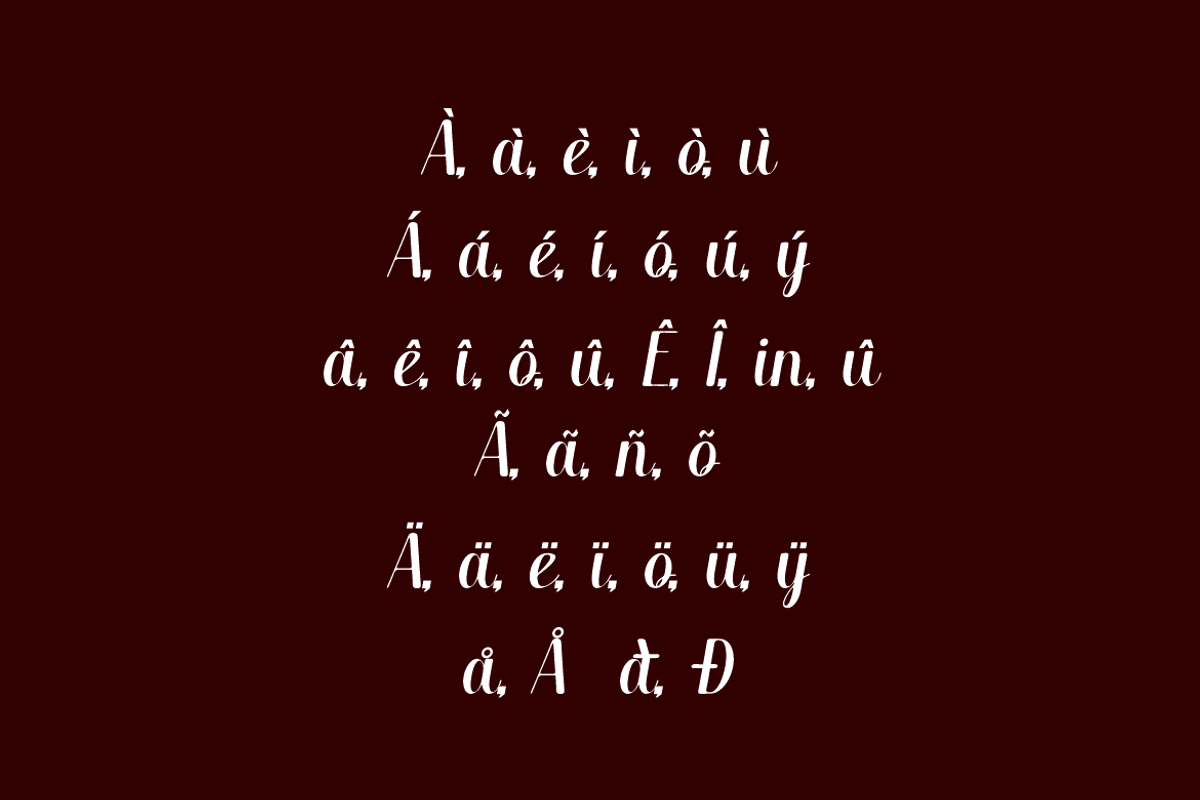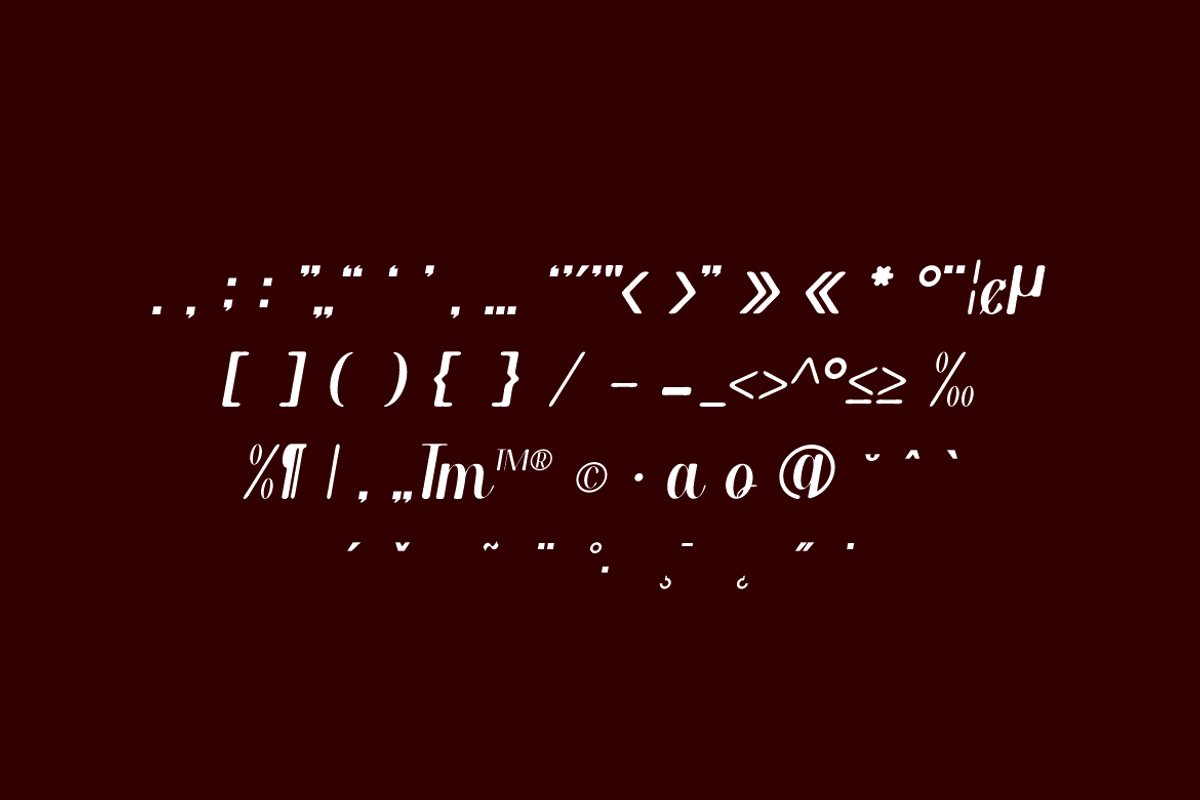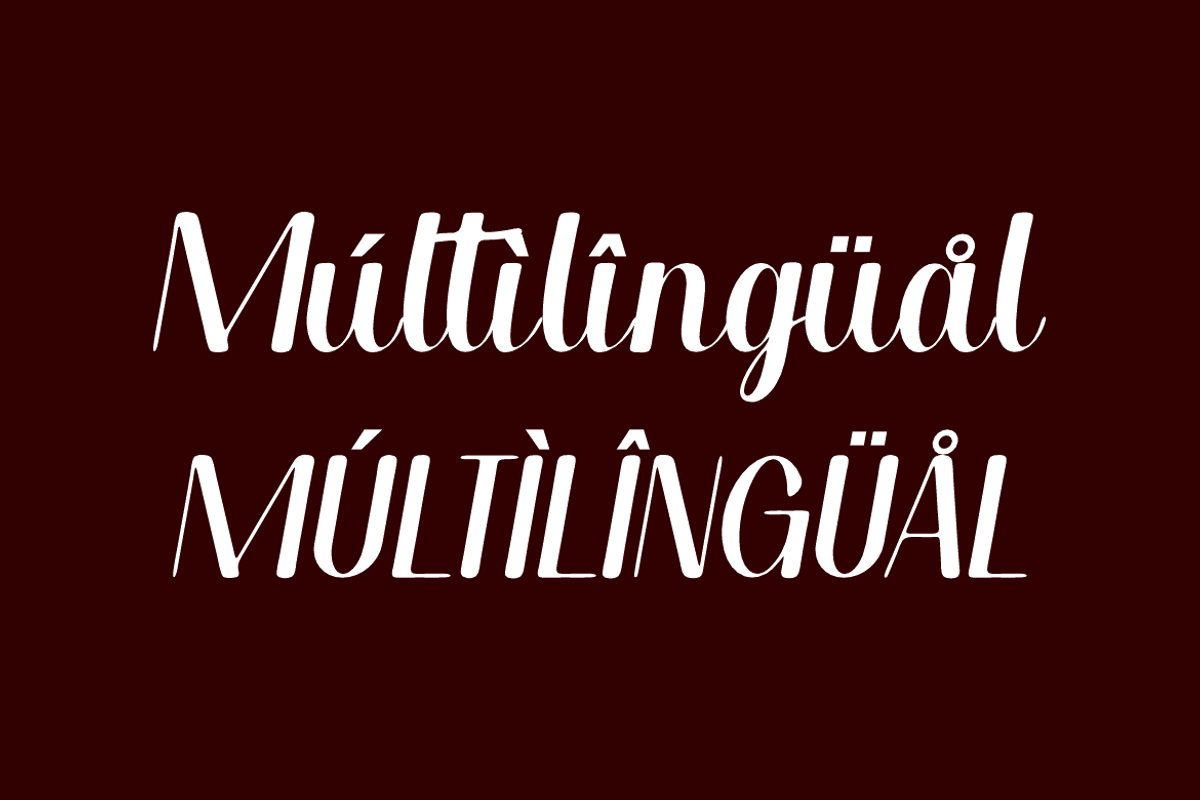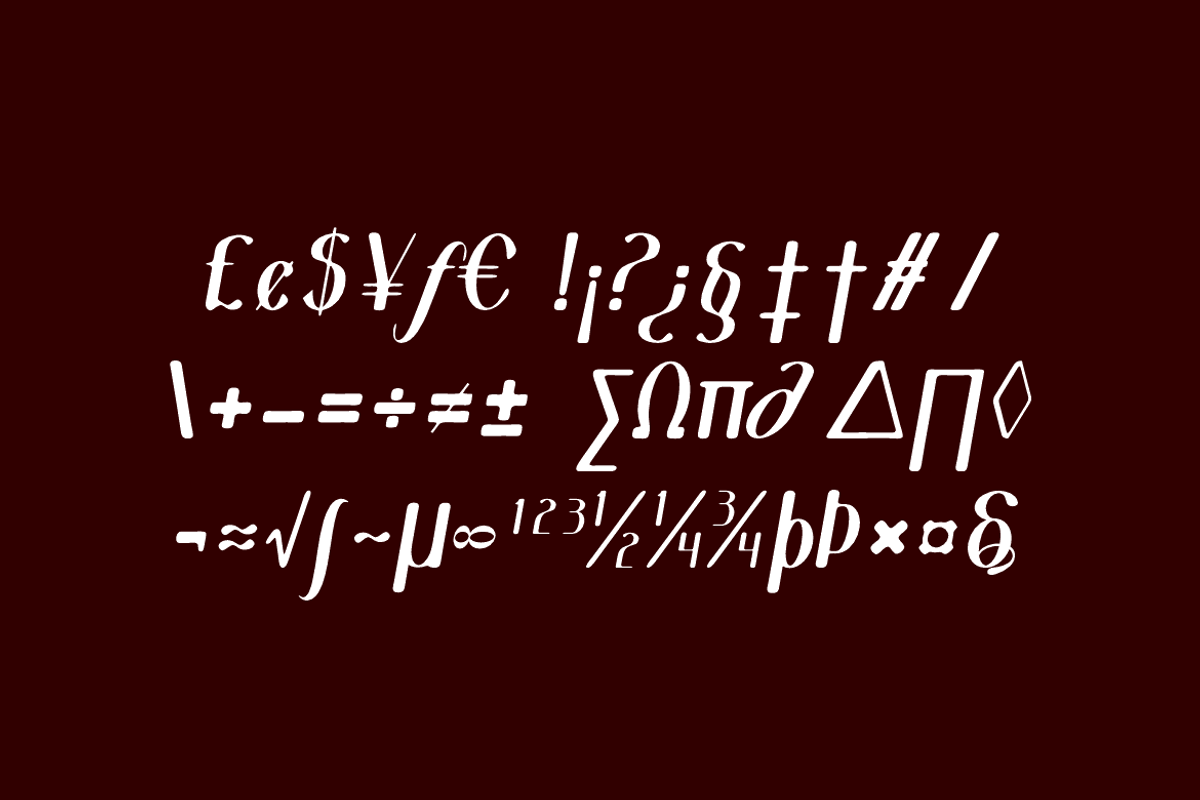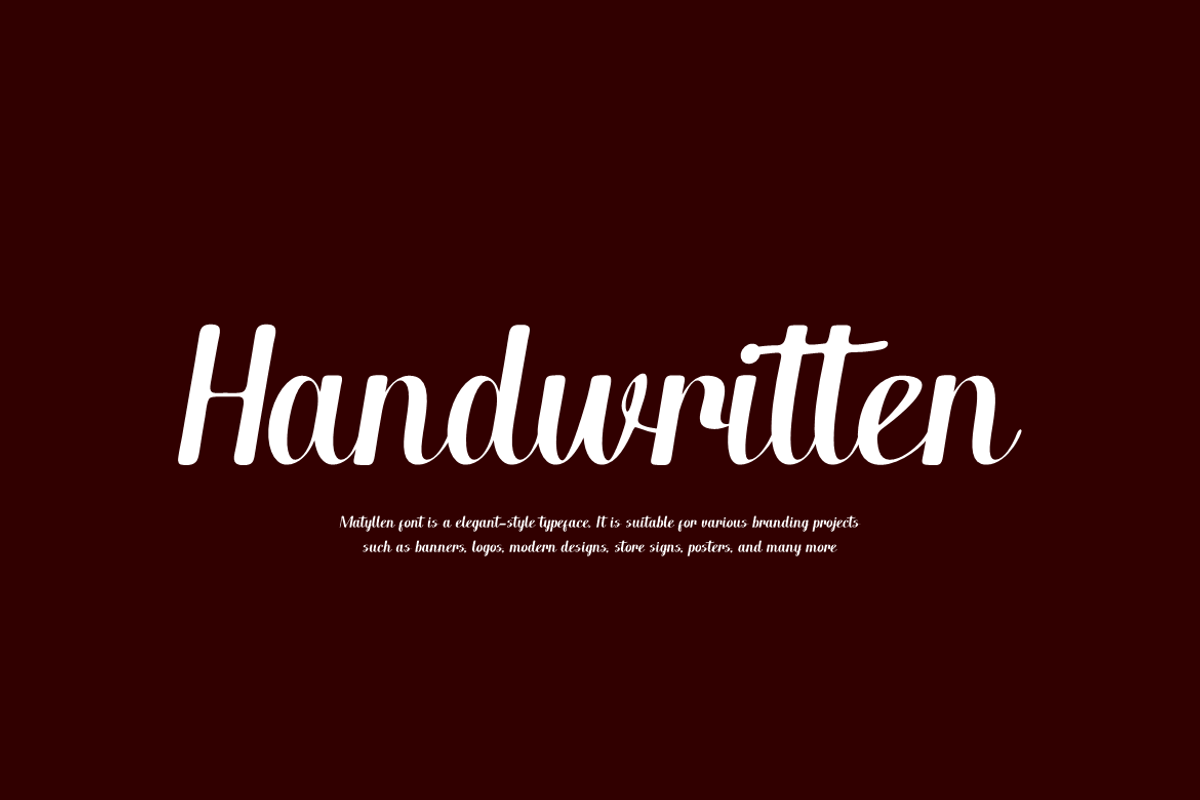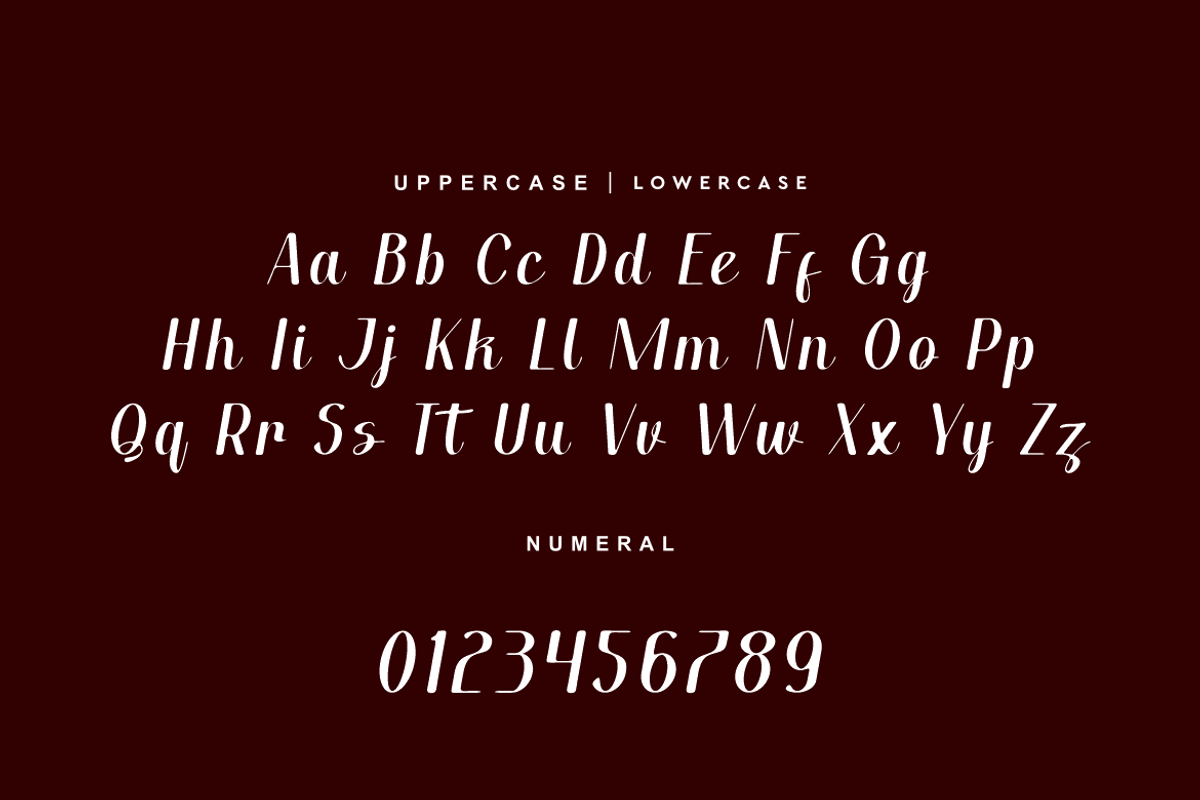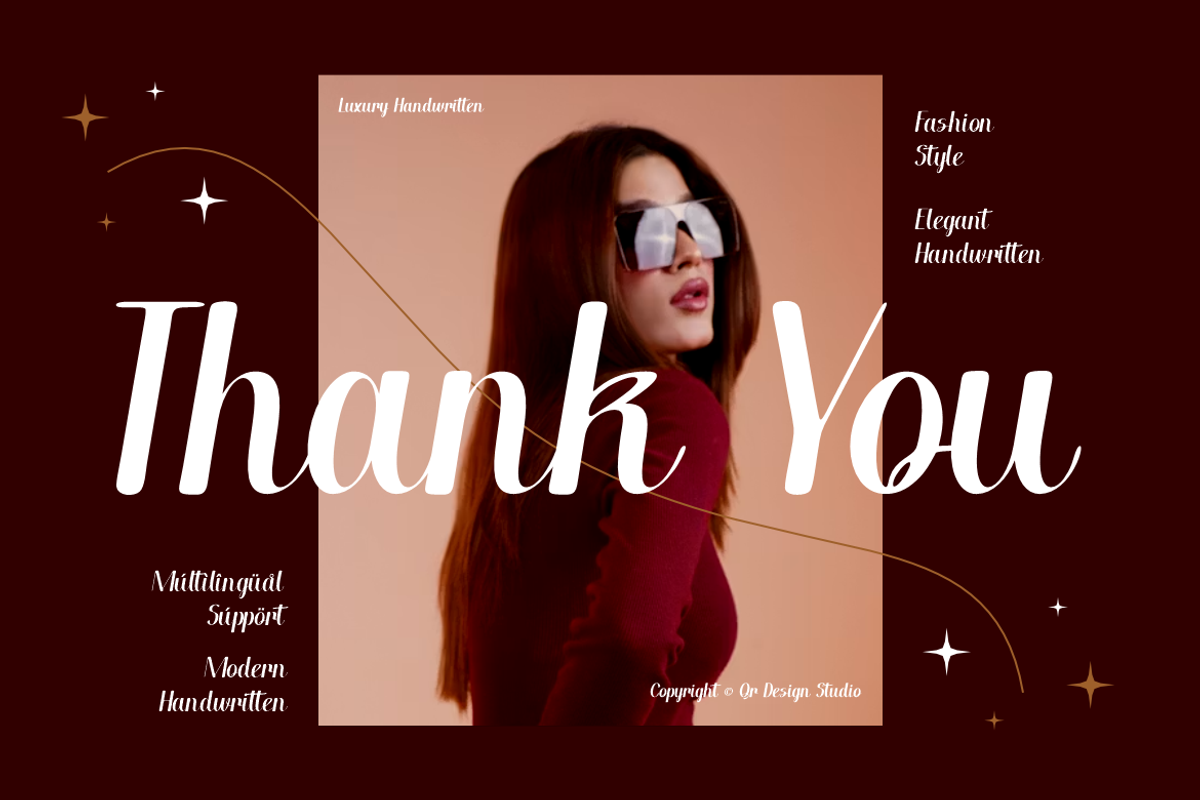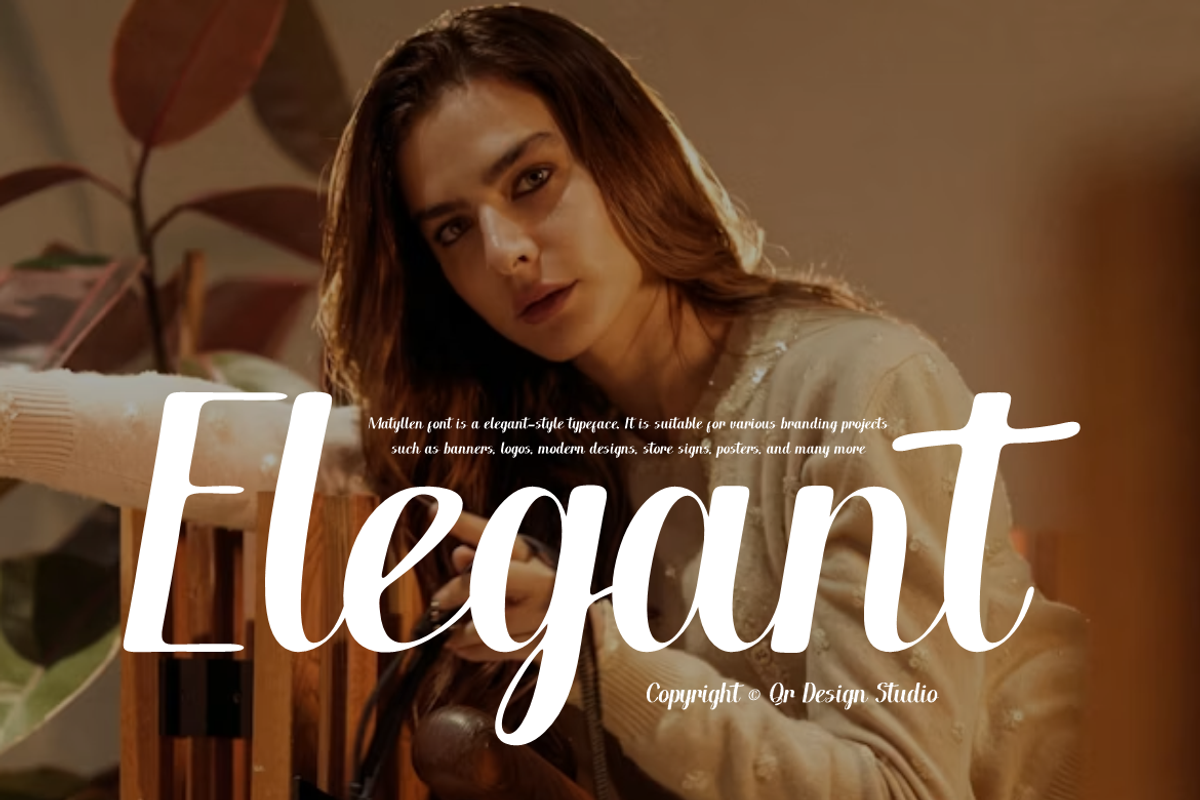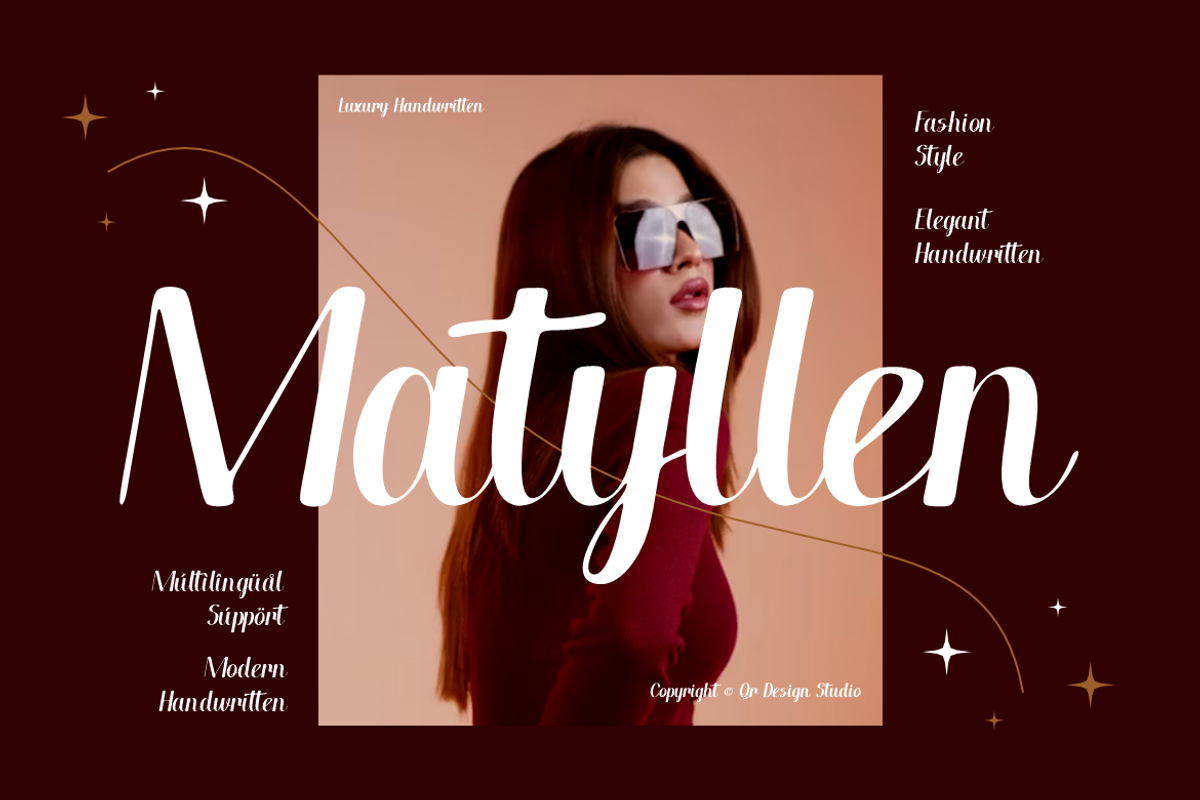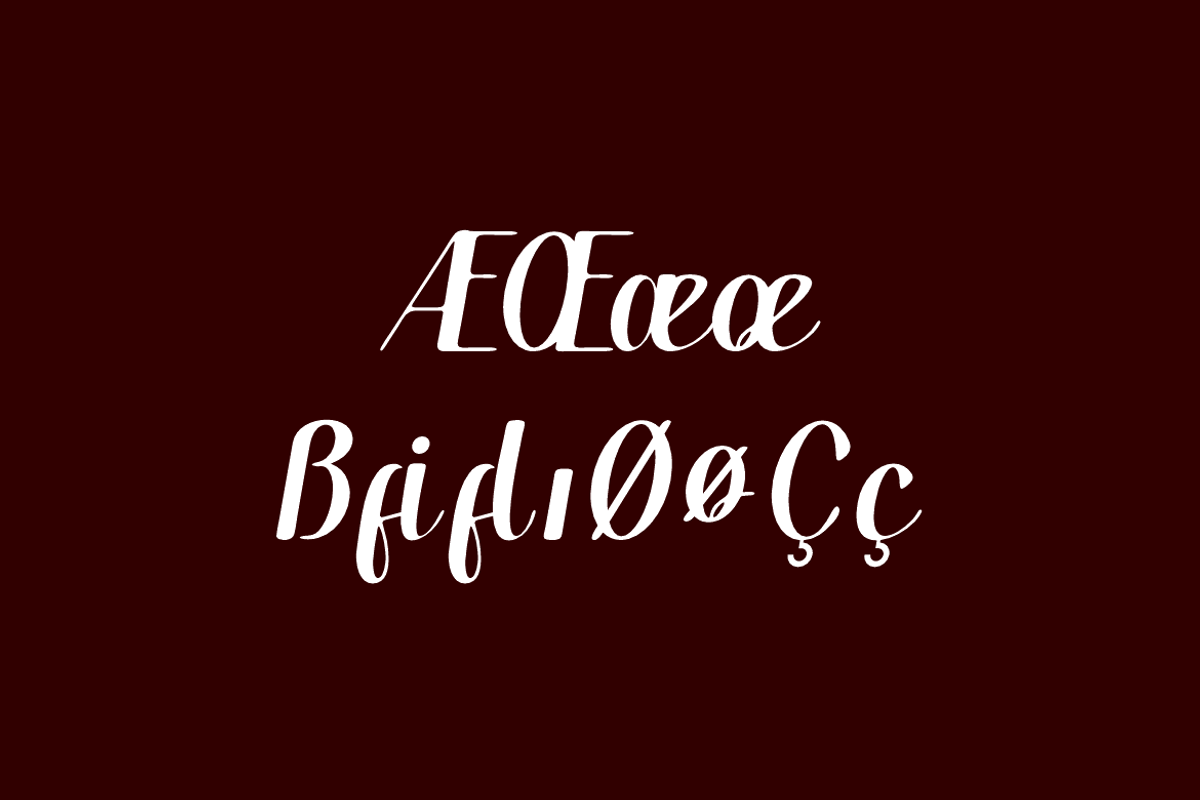
Matyllen - Modern Handwritten Font
Matyllen Font is a handwritten and authentic display typeface.
It’s perfect for various branding projects such as logos, modern designs,
and more. This font stands out beautifully in a wide range of contexts.